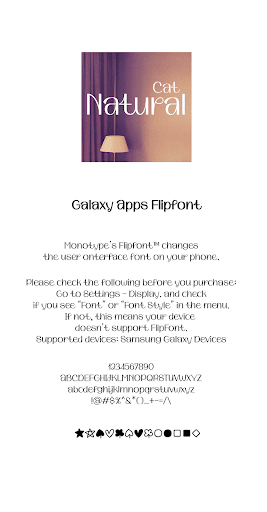
CatNatural.
Happy and joyful font! This is CatFont.
It is a font that expresses the natural appearance of everyday life in a sophisticated sense.
Beautiful curves are together.
modern and stylish font.